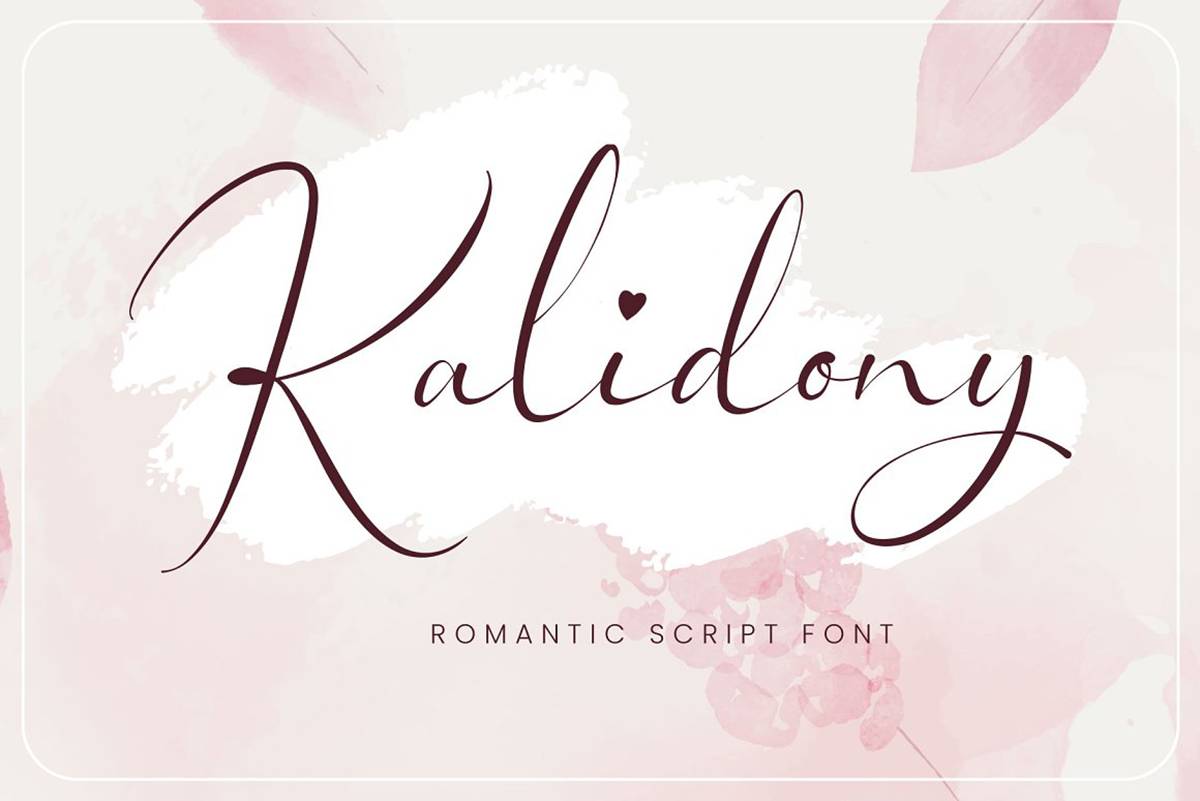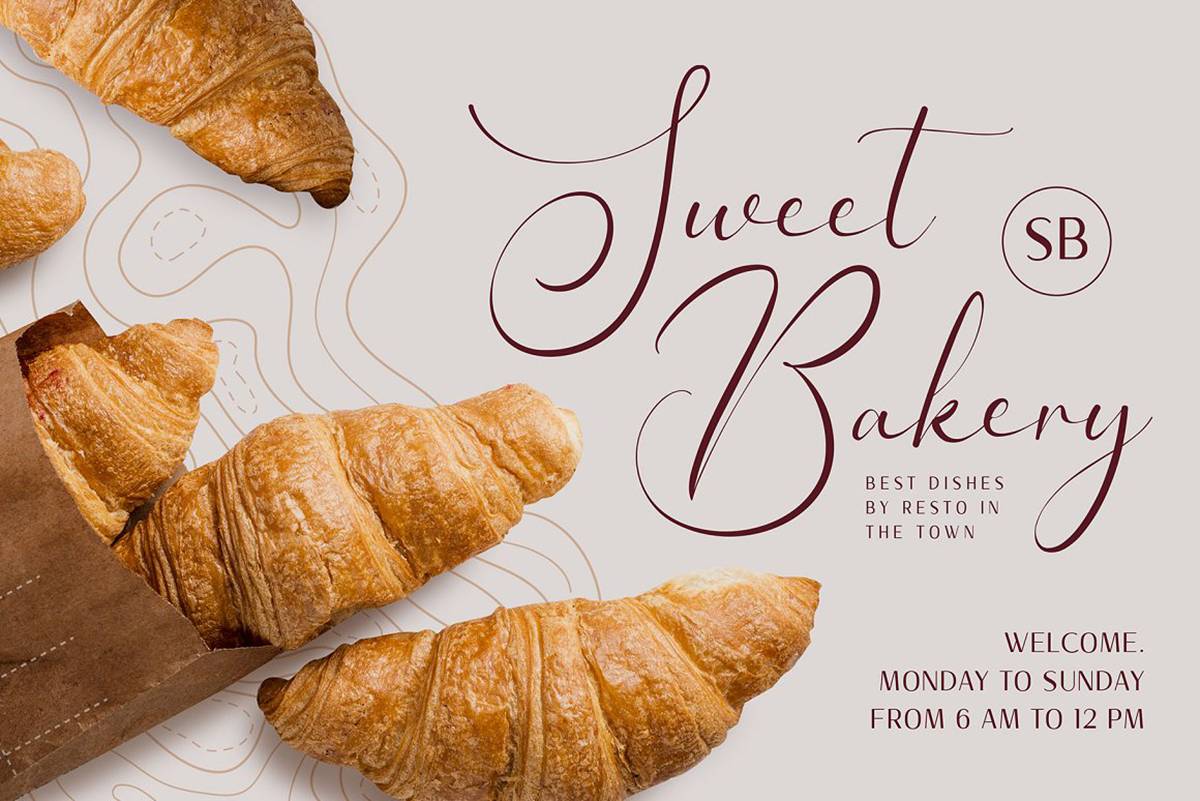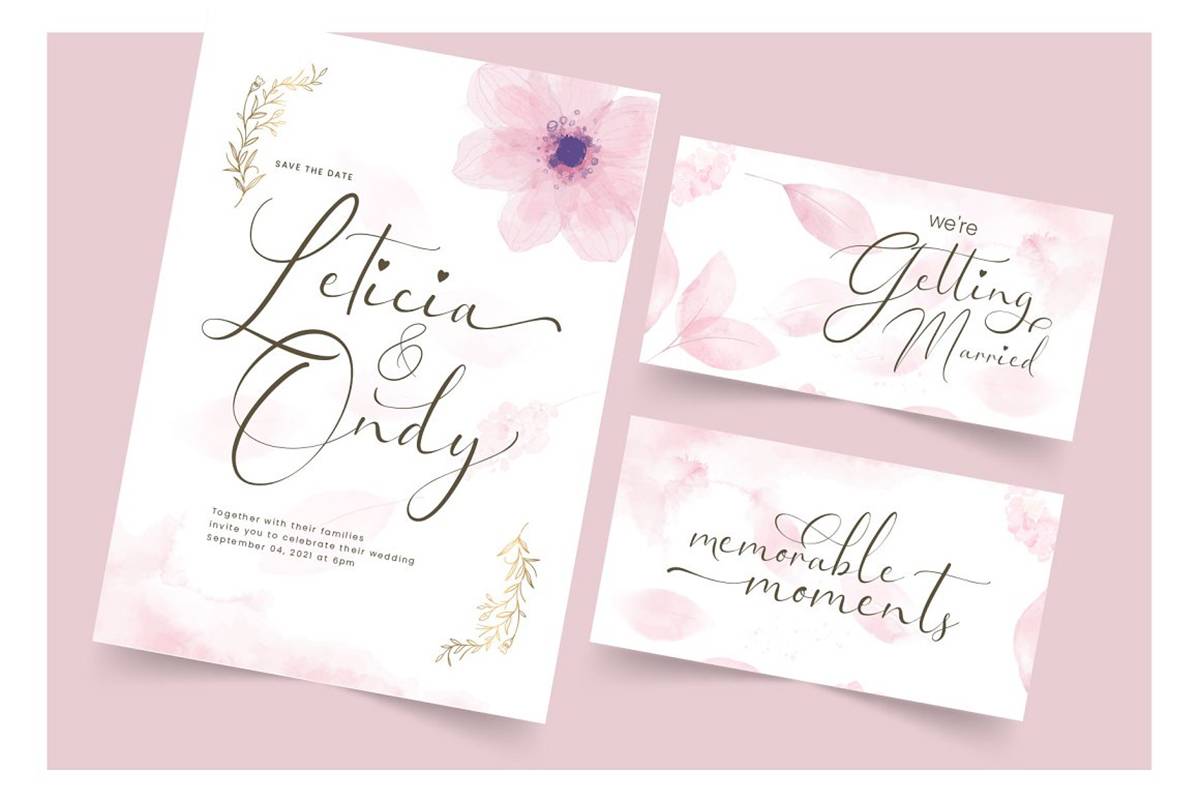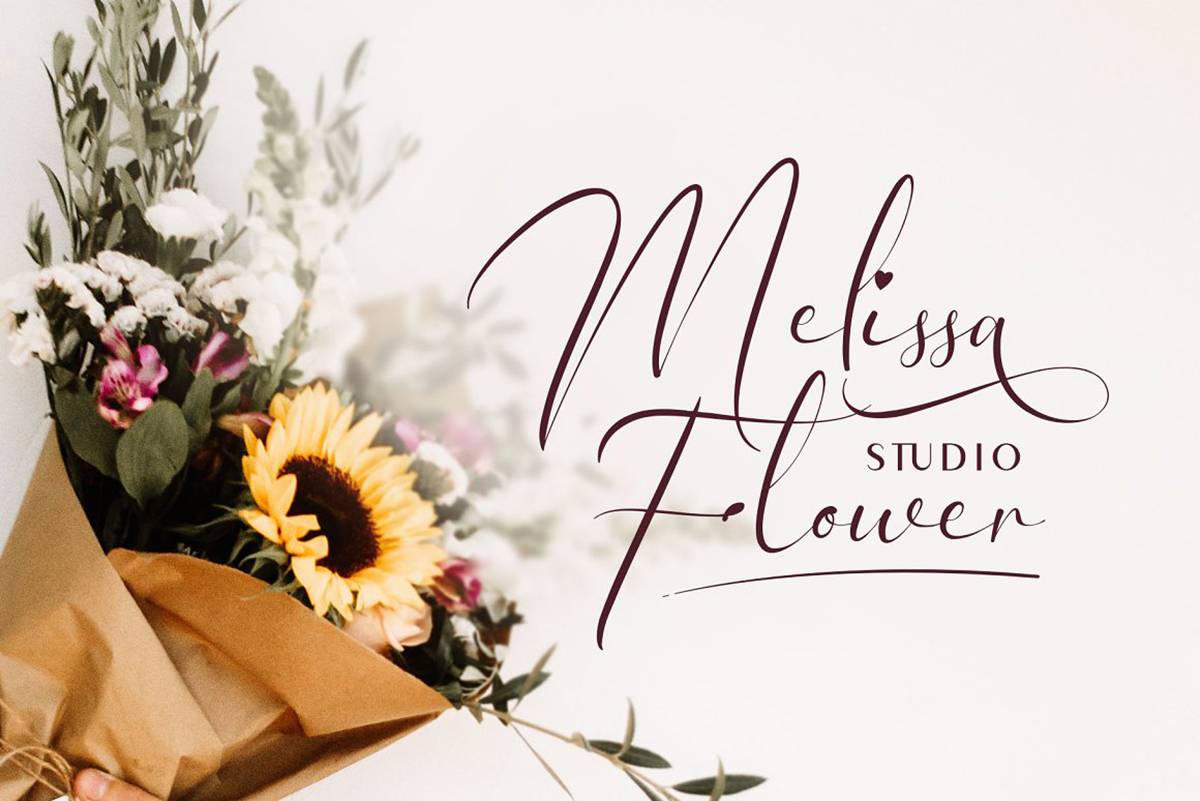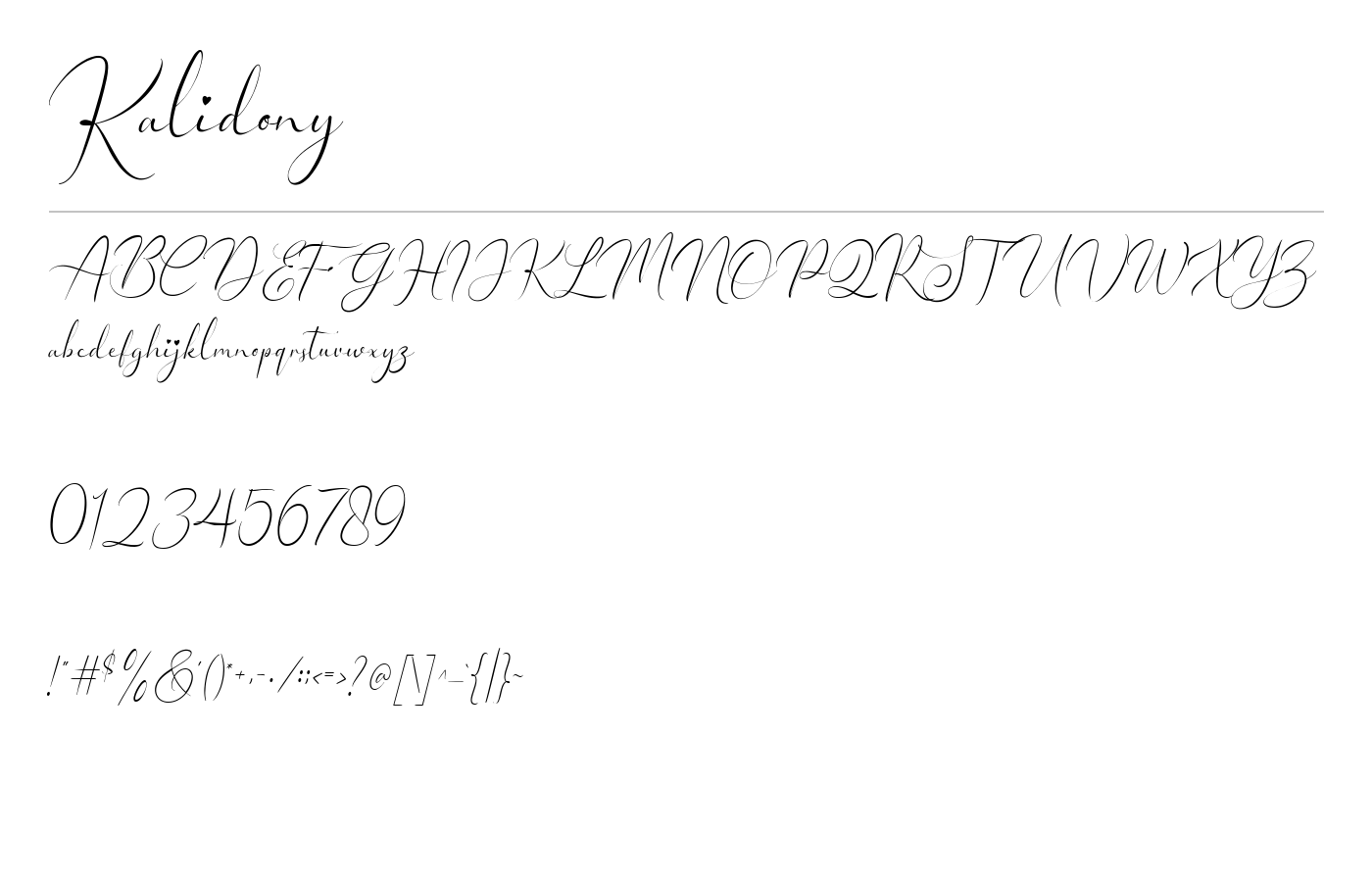
Kalidony is an elegant, thin script font with delicate, flowing strokes that create a sophisticated and graceful feel. Its fine lines and cursive letterforms make it ideal for stylish invitations, luxury branding, and artistic designs where a touch of refinement and femininity is desired. This font works best in large sizes for headlines or decorative text, adding a charming, handwritten quality to any project.
Kalidony Font
About Kalidony Font
| Font family | Kalidony Font |